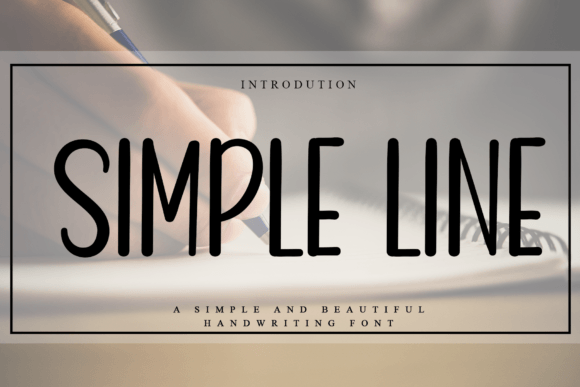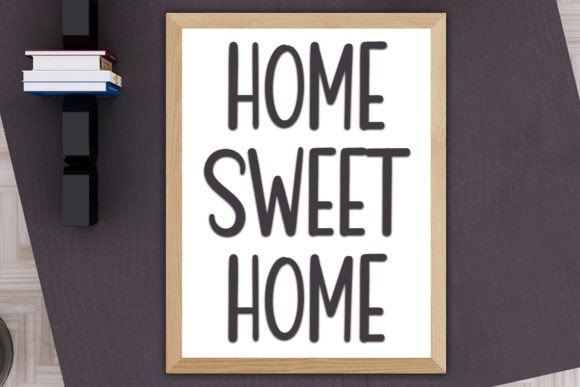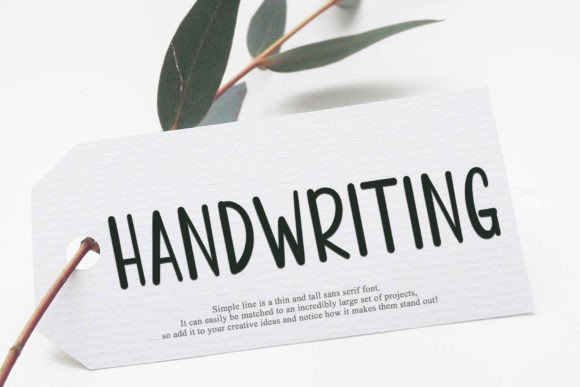
About Simple Line Font
“Simple Line is a neat and beautiful handwritten font characterized by an elegant touch, making it perfect for a variety of projects. Its incredibly distinct and timeless style adds a touch of sophistication, allowing you to create spectacular designs that captivate the eye.
The charm of Simple Line lies in its simplicity and elegance. The neat handwriting style brings a sense of order and clarity to each letter, making it versatile for a wide range of creative applications. It’s a font that effortlessly blends a clean aesthetic with a touch of beauty.
Whether you’re working on invitations, branding materials, or any other creative endeavor, Simple Line stands out as a reliable choice. Its distinct and timeless style ensures that your designs have a classic quality that stands the test of time.
Imagine Simple Line enhancing your projects, adding a neat and elegant touch to your favorite designs. Its versatility becomes evident as it adapts to different contexts, making your creations visually appealing and sophisticated.
As you explore the nuances of Simple Line, you’ll discover its potential to transform ordinary projects into visual masterpieces. Let it be the font that brings simplicity and elegance to your creative vision, making your designs stand out with a distinct and timeless aesthetic. With Simple Line, every stroke becomes a brushstroke of beauty, making it an invaluable asset for designers who appreciate the artistry of handwritten typography.”